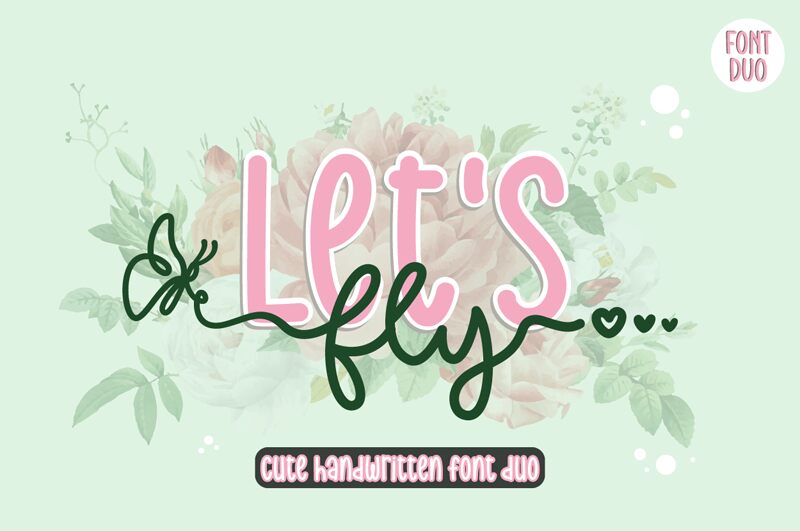
Lets Fly 1
Introducing "Lets Fly 1" font family by Letter Art Studio, a light and joyful handwritten font. Perfect for crafting logos, invites, social media posts and more - it's sure to make your projects soar!